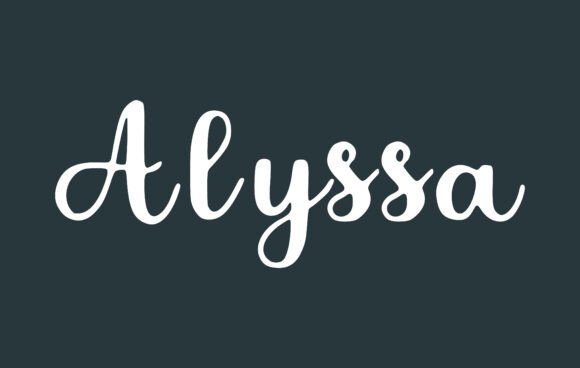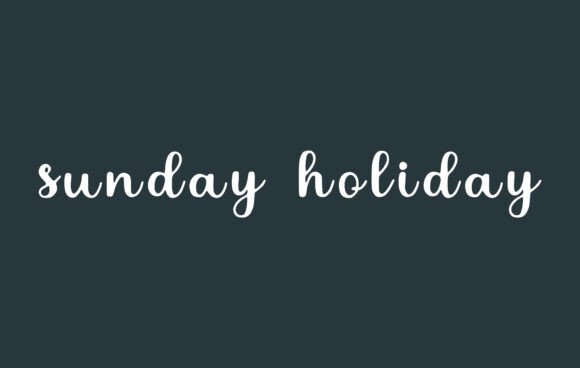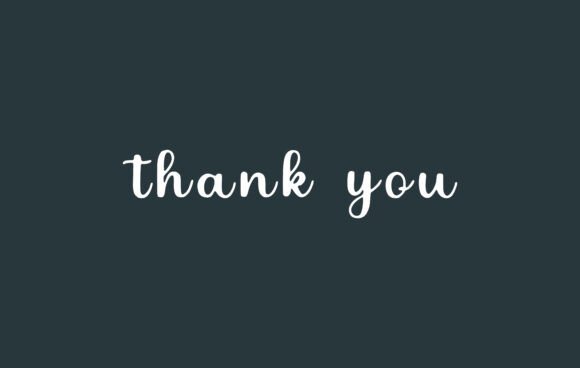
Alyssa Font: Romantic Handwritten Script for Wedding Invitations
About the Alyssa Font
Elevate your designs with Alyssa Font, a font that combines sophistication with readability. Alyssa font is an authentic handwritten font with a romantic touch. Expertly designed to be a true favorite, this font has the potential to take your creative ideas to the highest level
Alyssa’s romantic charm makes it ideal for projects requiring a touch of elegance and warmth, such as wedding invitations, branding for beauty or lifestyle products, and short-form editorial pieces. Its legibility shines in headlines and short text blocks, but its handwritten nature makes it less suitable for large bodies of text or UI elements where high readability is paramount.
For optimal visual harmony, pair Alyssa with a clean sans-serif like Montserrat for a modern contrast or a classic serif such as Garamond for a more traditional feel. A playful script font could also complement its romantic style, depending on the overall design goals.
Alyssa projects a sophisticated yet approachable personality—refined, but not aloof. Avoid using it for projects requiring a bold, minimalist, or highly technical aesthetic.